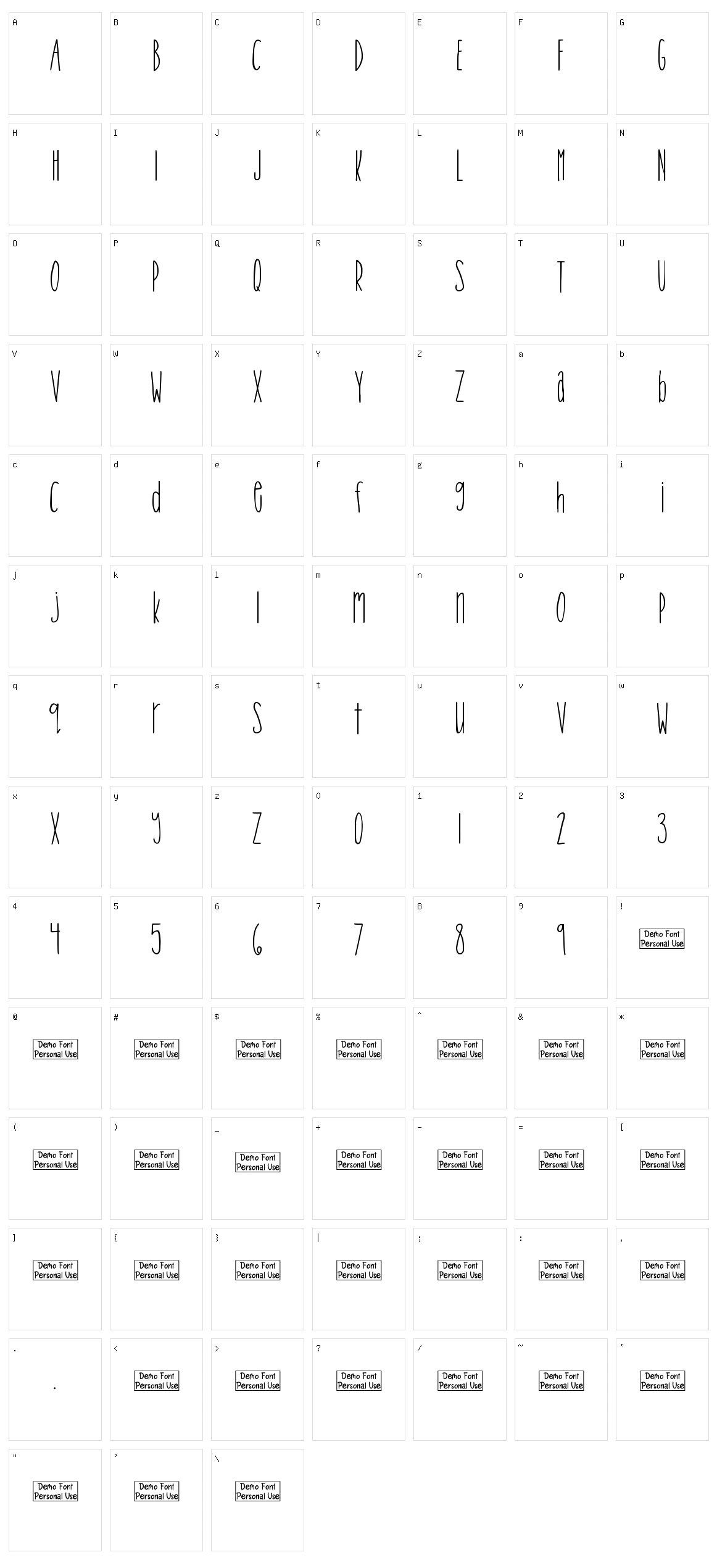
The free font Tropical Trouble is carefully designed by Tate Chaffin, showcasing a thoughtful balance of creativity and usability and falls under the Script font style. When you download the ZIP file, it contains only 47.55 KB of font files, making it lightweight and quick to download. Please review the license details below to understand permitted usage and distribution rights. If license information is not available, we recommend using this font for personal projects only or contacting the author directly for commercial usage permissions.